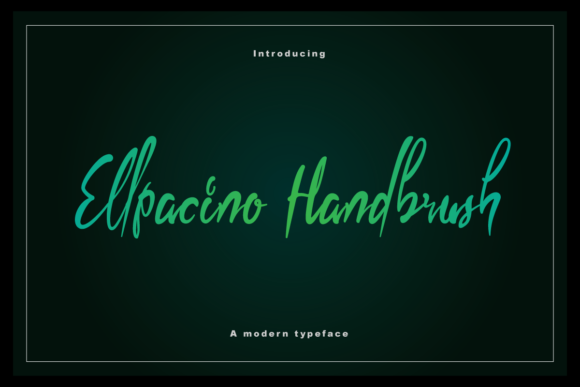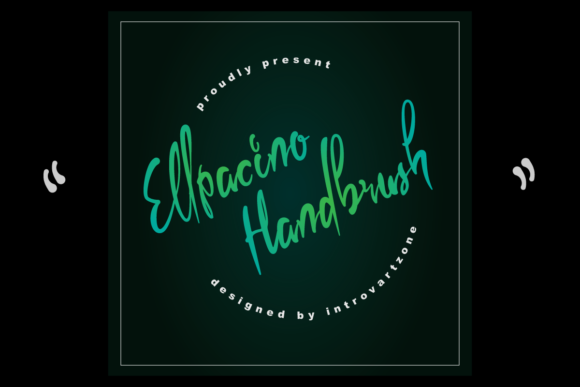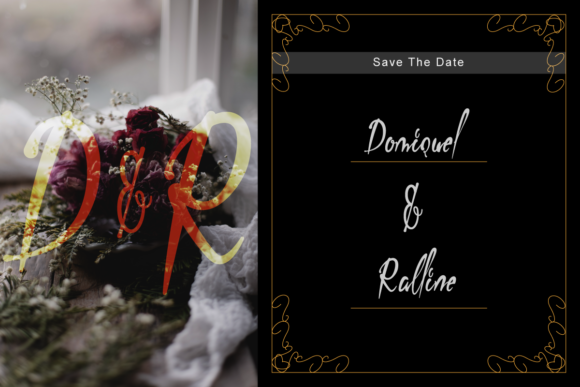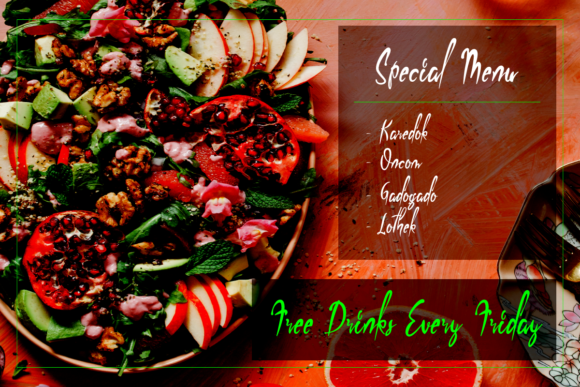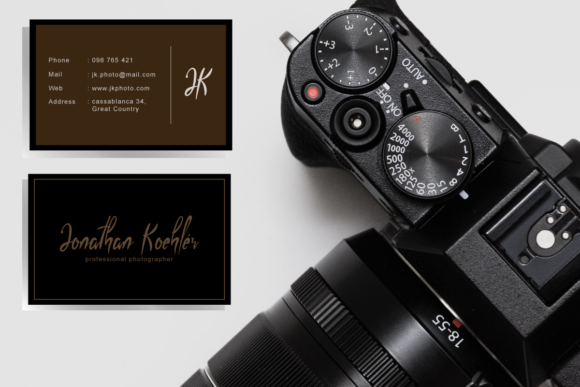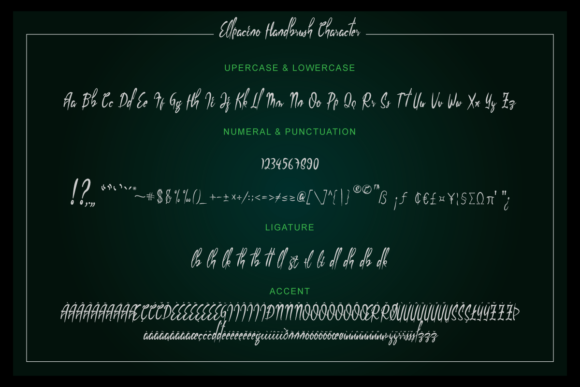
Ellpacino Handbrush Font
About Ellpacino Handbrush Font
Ellpacino Handbrush is a handwritten font that feels equally stylish and elegant. It features an incredibly classic style, while still keeping a friendly feel. Ellpacino Handbrush is the perfect font for making original and outstanding designs.